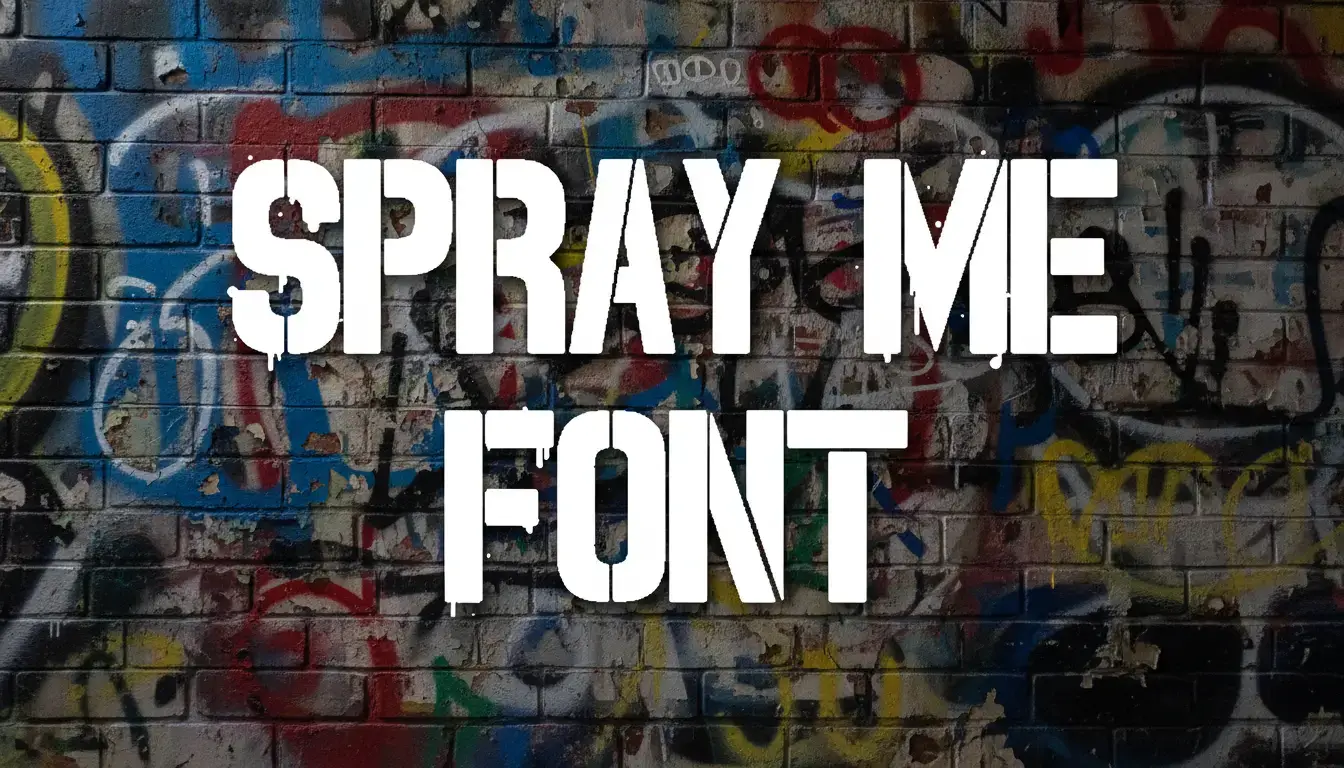
Spray Me Font
- Designer: Michał “Neoqueto” Nowak
- Glyphs: 90
What You Can Type With Spray Me
With complete upper and lowercase letters and all ten digits, Spray Me is ready for real wording, not just a single headline. Common punctuation such as &, !, ? and @ is included as well. It doesn't include accented letters such as é or ñ, which makes it an English-only font.
Where Spray Me Works Best
Think of Spray Me for posters, logos and eye-catching headlines. Use it for one standout word or headline and let simpler fonts handle the rest.
Does Spray Me support accented letters?
No. Spray Me has no accented letters such as é, ñ or ü, so it's best for English text.